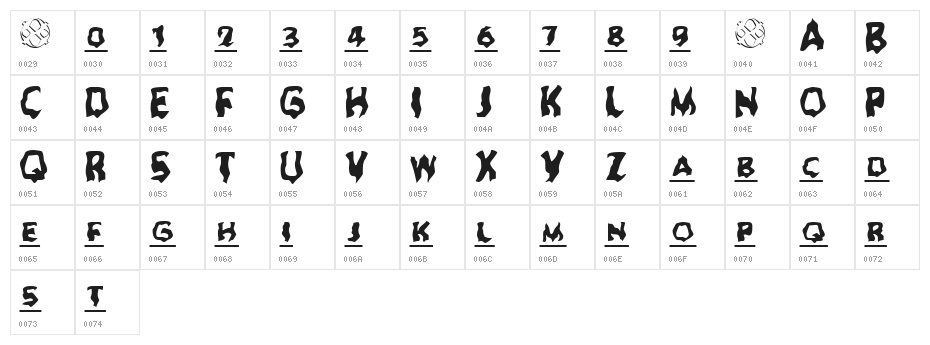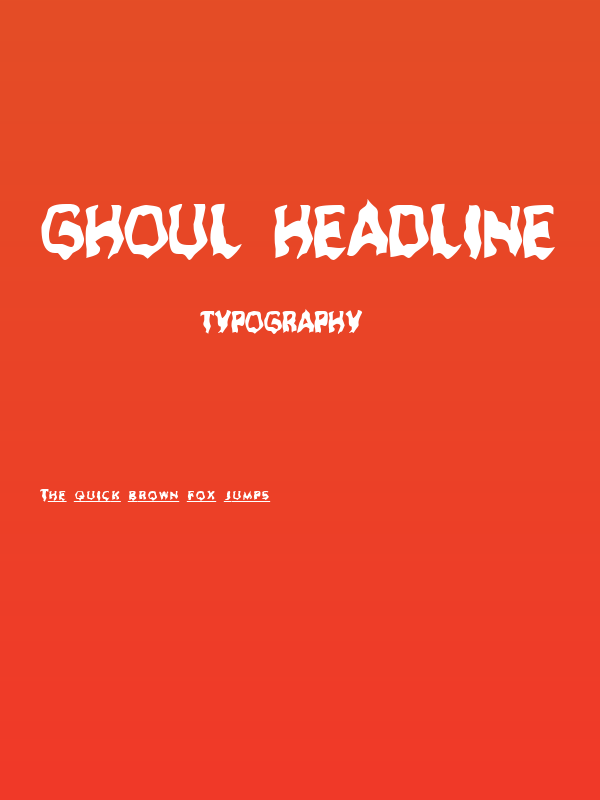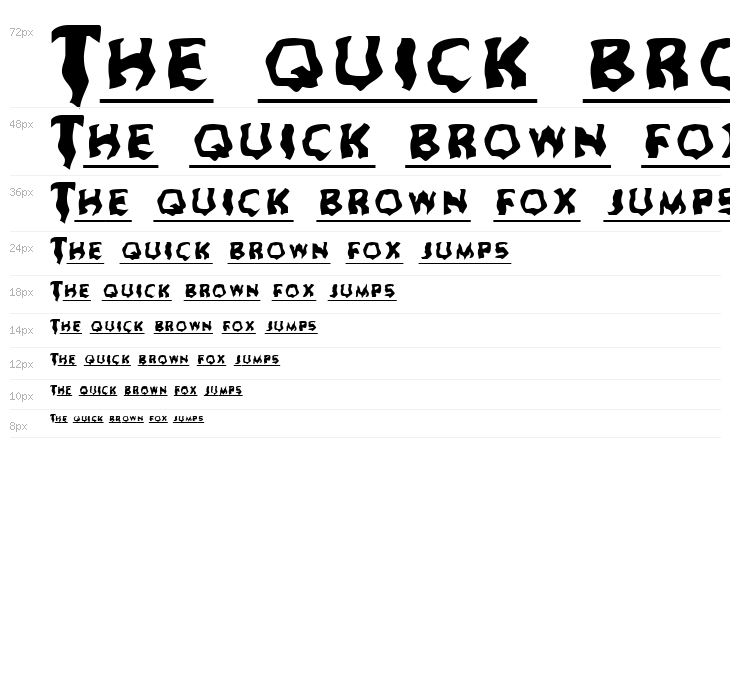
Ghoul Headline Font
Ghoul Headline Description
This font features a bold and jagged design, reminiscent of eerie and spooky themes. The characters have sharp, irregular edges that give them a ghostly appearance, perfect for Halloween or horror-themed projects. The uppercase and lowercase letters maintain a consistent style, with the uppercase being more pronounced. The numbers and special characters follow the same jagged aesthetic, ensuring a cohesive look across all text elements. The font's unique style makes it stand out, capturing attention with its dramatic and unsettling form.
| Proposed Projects | Ideal for Halloween posters, horror movie titles, haunted house flyers, and themed event invitations. |